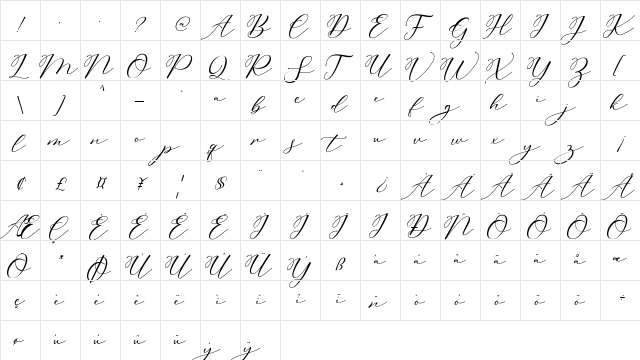
Carliste Script Demo Regular
| Foundry | Kurniadi Saputra |
| Designer | Kurniadi Saputra |
Design Context for Carliste Script Demo Typeface
Carliste Script Demo flows with the natural rhythm of handwritten lettering, making it ideal for designs that call for warmth and personal expression.
Font Pairing: Combine Carliste Script Demo with a simple geometric sans for maximum contrast — the tension between flowing curves and clean structure is a classic typographic pairing.
Pro Tip: Pair Carliste Script Demo with a clean sans-serif for supporting text. The contrast between fluid script and geometric structure creates an elegant typographic hierarchy.